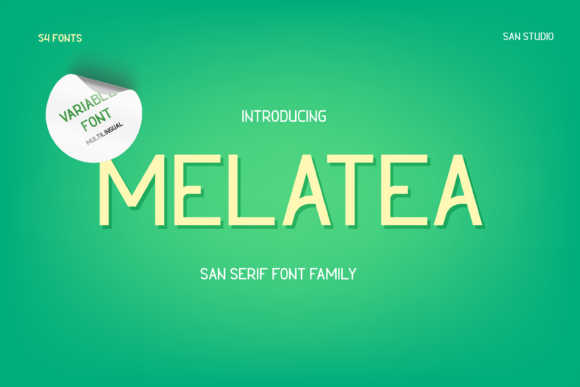
Behold Melatea, a stunning sans serif font family, meticulously crafted by San Studio, designed to ignite your creativity and make your words leap off the page. With its clean lines, minimalist aesthetics, and captivating curves, Melatea is not just a font; it's an artistic expression waiting to be unleashed.
Dive into the world of Melatea and discover its versatility. It's a font that effortlessly adapts to a kaleidoscope of projects, from elegant wedding invitations and captivating logos to eye-catching social media posts and vibrant marketing campaigns. Melatea's adaptability is its superpower, allowing you to infuse your words with personality and style, no matter the context.
Express your individuality with Melatea. Its meticulously crafted characters exude a timeless charm, adding a touch of sophistication to your designs. Each letterform is carefully balanced, ensuring effortless readability and visual harmony. Whether you're designing for print or digital, Melatea guarantees a striking impact that commands attention.
Unleash your creativity and let Melatea be your artistic muse. Its minimalist design allows your content to take center stage, ensuring your message shines through with clarity and impact. Melatea is the perfect canvas for your imagination, allowing you to create designs that resonate with your audience and leave a lasting impression.
Join the growing community of designers, artists, and creative entrepreneurs who have embraced Melatea's allure. Experience the sheer joy of creating with a font that brings your vision to life. Melatea is more than just a font; it's an invitation to explore the boundless realms of your creativity.